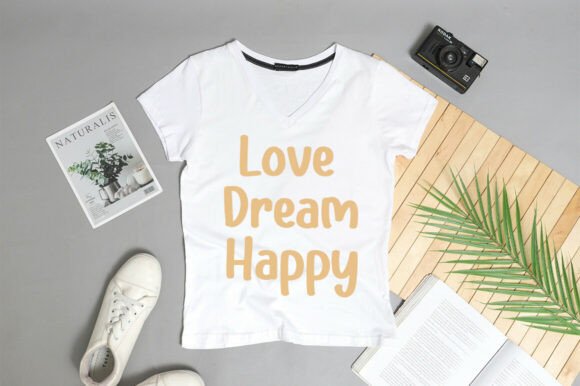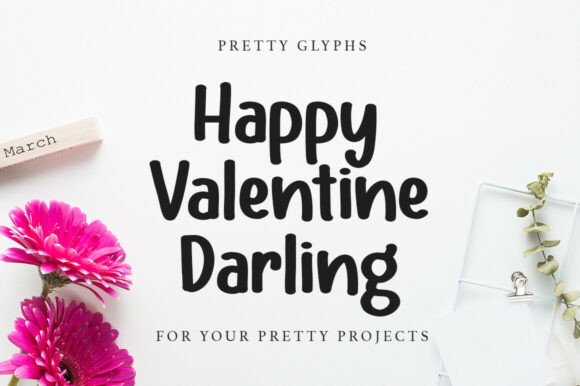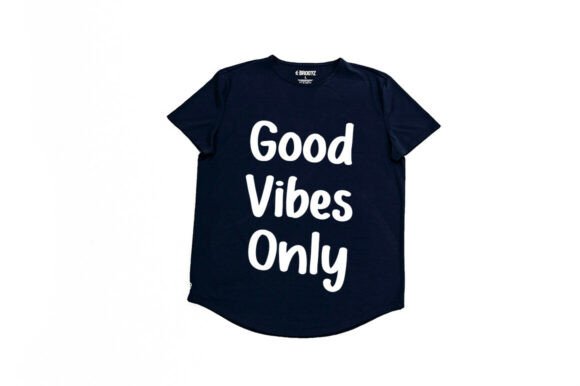
Introduction to Magline Font
Have you ever been stuck in a creative rut, struggling to find the perfect font to bring your vision to life? The moment of inspiration hits, and you frantically search for that elusive combination of style and sophistication. For designers, the quest for the ideal font can be a never-ending journey. But what if we told you that the perfect companion for your next creative project has arrived? Enter the Magline Font, a vibrant, handcrafted brush font that embodies the essence of effortless sophistication.
With its bold, expressive style and natural strokes, the Magline Font is the perfect design resource for trendsetters and creatives who crave strong personality and genuine flair. This font is not just a pretty face – it’s a powerhouse of creative energy that demands attention and ensures your message is communicated with self-assured, artistic sophistication. Whether you’re working on a high-quality project that requires a transparent background or simply need a font that pops on social media, the Magline Font is a free download that’s sure to elevate your design game.
Key Features of Magline Font
- Magline Font offers a transparent background option, making it ideal for creative projects where the text needs to blend seamlessly with the background.
- Magline Font is a great design resource for creatives, with a wide range of styles and fonts to choose from, making it perfect for various creative projects.
- Magline Font has a large character set with over 500 glyphs, including Latin, Cyrillic, and Greek alphabets, making it suitable for various languages and projects.
- It has a resolution-independent design, ensuring that the text remains clear and legible even at high resolutions and large sizes.
- The font is available in multiple sizes, ranging from 12 to 72 points, and can be easily scaled up or down without losing its quality.
Honest Review: Magline Font
I recently had the chance to experiment with the Magline Font, and I must say, it’s a great addition to any designer’s toolkit. This high-quality font is perfect for creative projects that require a touch of elegance and sophistication.
- ✨ High-quality design that’s perfect for logos, titles, and other text-based elements.
- ✨ The Magline Font has a transparent background, allowing for seamless integration with any design.
- ⚠️ The font may not be as versatile as other fonts in its category, limiting its use in certain design scenarios.
- ⚠️ Some users may find the font to be too ornate, which could be a drawback for simpler designs.
Overall, I’m impressed with the Magline Font. While it may have some limitations, its high-quality design and free download make it a valuable resource for designers. It’s perfect for creative projects that require a touch of elegance and sophistication.
Magline Font
Tips for Getting the Most Out of Magline Font
To get the most out of Magline Font, use it for creative projects that require a unique and stylish design. Experiment with different font sizes, colors, and alignments to create a visually appealing design. You can also combine Magline Font with other design resources to create a cohesive and professional-looking design.
Magline Font is commonly used for design projects that require a high-quality and stylish font. Some common use cases include: designing logos, creating business cards, making presentations, and writing articles. The font’s transparent background and free download make it an ideal choice for designers and non-designers alike.